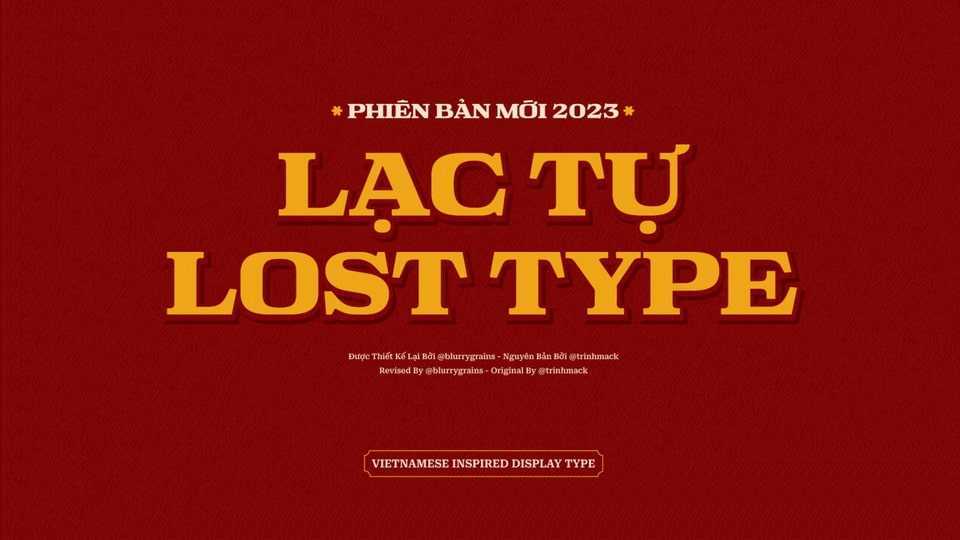
Download Lost Type font, a display typeface that captures the essence of the bygone era, where bold letterforms adorned storefronts, posters, and advertisements, leaving an indelible mark on the urban landscape.
Designer: Mack Trinh